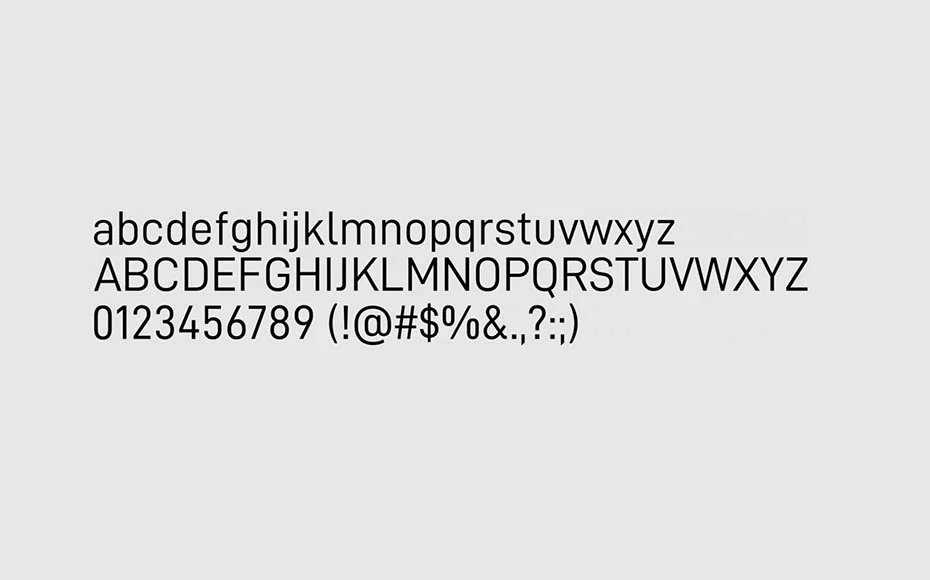
D-din Pro Font is an amazing font that belongs to the sans serif category. It is based on geometric shapes and is intended for use on display and documents designs.
All letters have a clean texture that is created with fine strokes. In which, height, width, proper kerning, and spaces are used. That’s why it becomes the best choice for professional work.
On the other hand, you can also utilize it with other serifs, slab serifs, and even techno fonts as well. Like with Spectral Font and Monopoly Font. This is the best and great feature of this versatile font.
This remarkable font has created by Cyberfei. And it has 6 weights including Regular, Medium, SemiBold, Bold, ExtraBold, and Heavy. So, it has the ability to create the whole design without other fonts’ help.
When you look at D-Din texture, then you find classical touch with modern feelings. So, This makes it a better choice for modern designs for sure.
With this fine quality font, you can create book covers, unique emblems, game graphics, product designs, special cards, posters, and many other cool places.
This elegant font has 234 glyphs in each weight with vast language support. In this way, it has the ability to create designs in different languages worldwide.